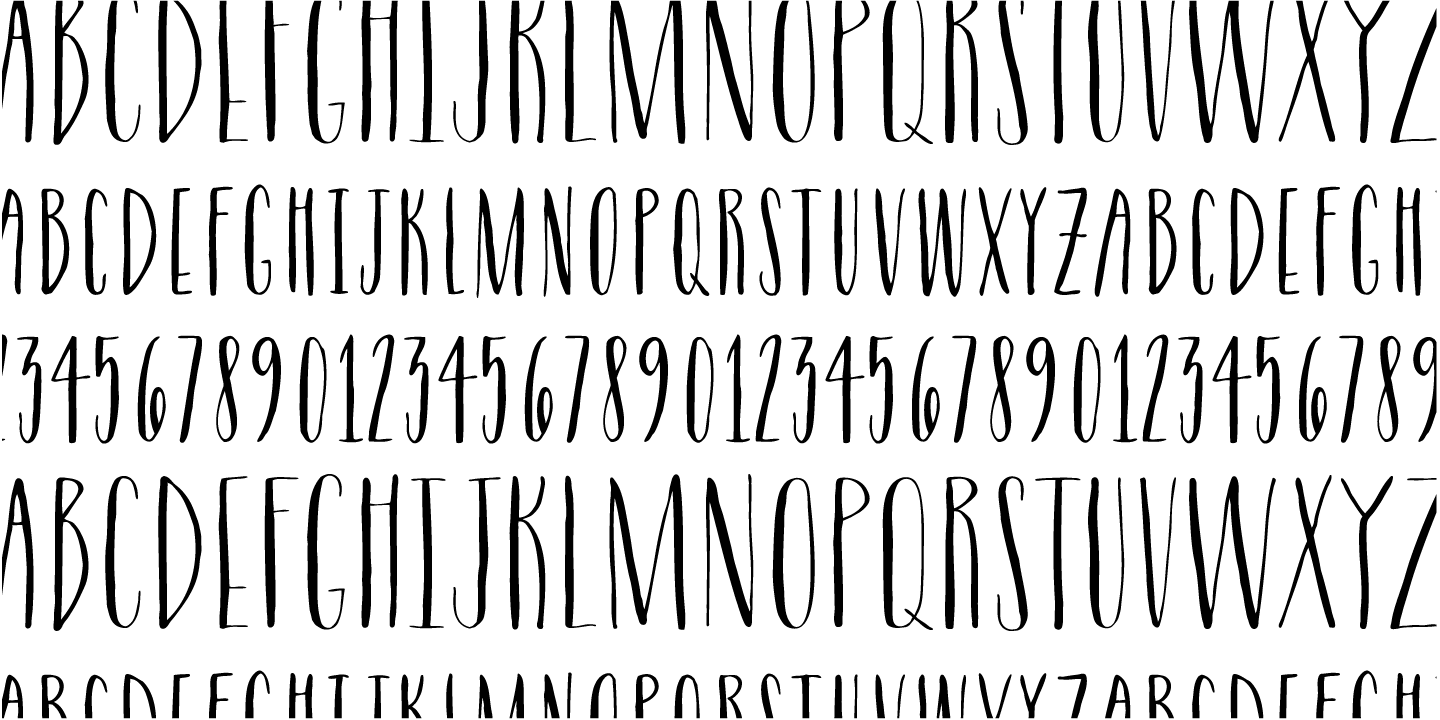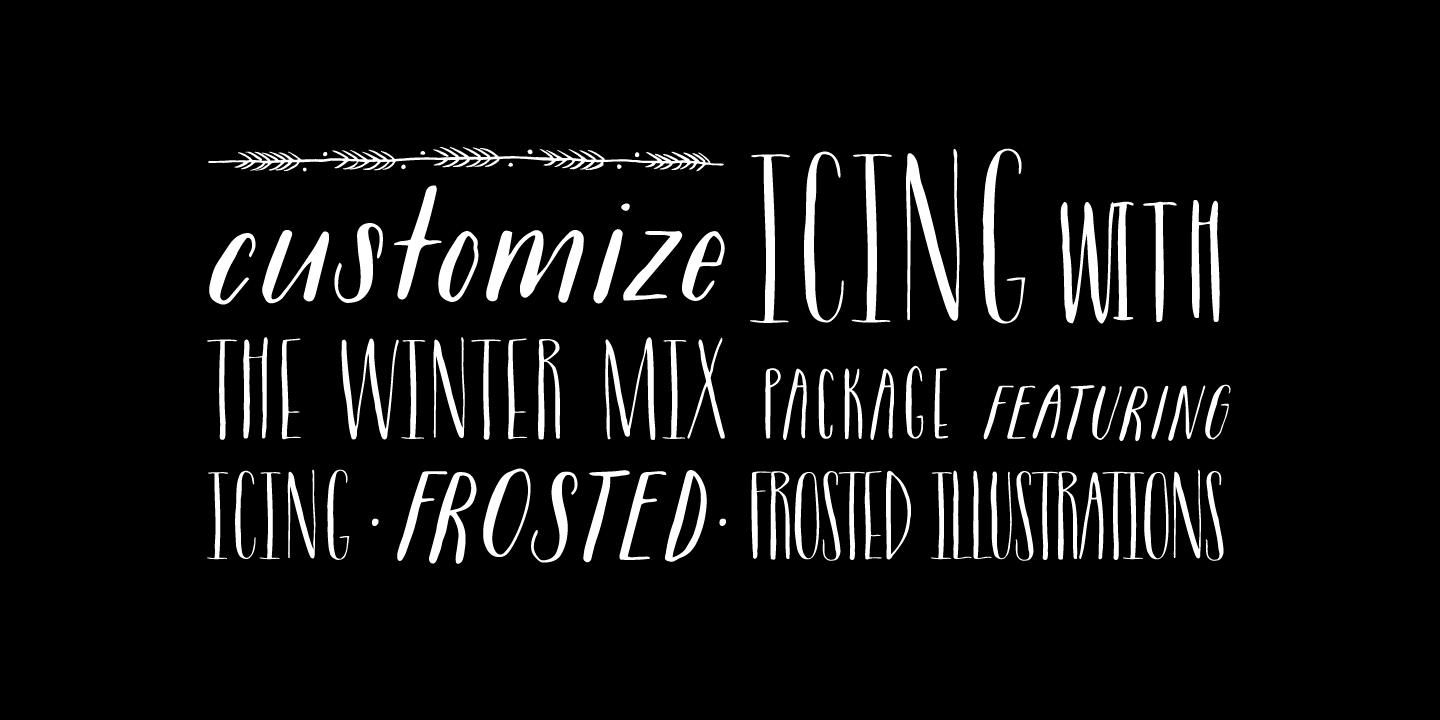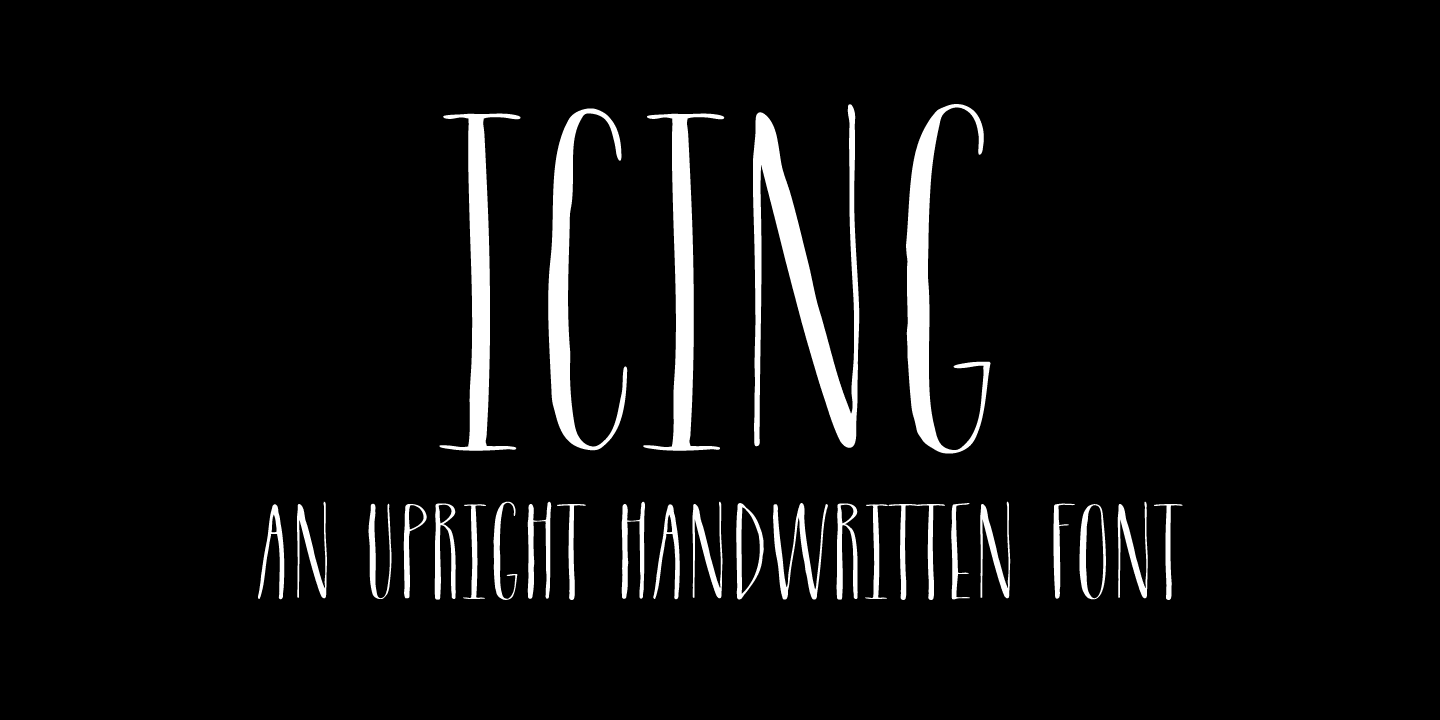
Icing
About Icing
Icing is a font based on a naive, illustrated handwriting that can be used on a daily basis. It is a delicate, handwritten front with a somewhat masculine feel which mimics the natural stroke of pointed pen calligraphy. Icing embodies a folksy feel that…